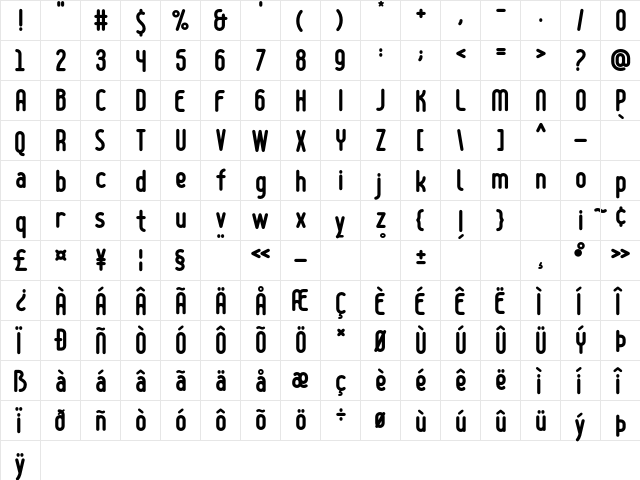
boldyear Bold
Design Context for boldyear Typeface
boldyear is a composed and adaptable typeface that performs quietly and consistently across a wide range of design contexts. The heavy weight commands attention and anchors typographic hierarchies.